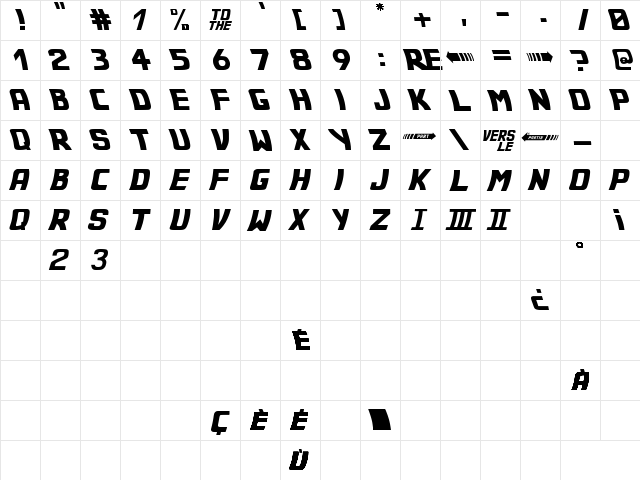
Back to the future 2002 Regular
| Foundry | High-Logic |
| Designer | High-Logic - Erwin Denissen 1999 |
Design Context for Back to the future 2002 Typeface
Back to the future 2002 has a distinctly futuristic character, with geometric precision and clean angles that feel at home in technology, gaming, and sci-fi contexts.